I was wondering if anyone knows the name of the font used in screenshot below? Thanks in advance! 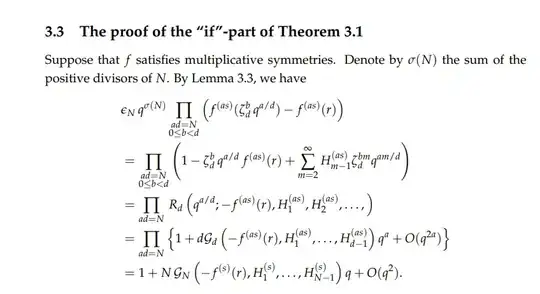
This seems to be Palatino, with math from mathpazo. Just to point out: you can also use this font with the more recent (and actively maintained) bundle newpx, although the math font is slightly different (the greek letters differ a bit, for example).
It's called Palatino.
Fortunately, even without the PDF file I was able to recognize this font because I have used it for almost all of my papers, for example here, and here and here.
1I did not look at all links, but in your first manuscript you seem to mix palatine text with computer modern math. – mickep Oct 02 '23 at 18:00
Thanks for pointing that out! I did use palatino in all of those papers, but it's true that for the first paper I also used computer modern for the math-mode parts (still the vast majority of the paper uses palatino). mickep and I had a discussion about this here in case anyone is interested. – user1271772 Oct 02 '23 at 18:35